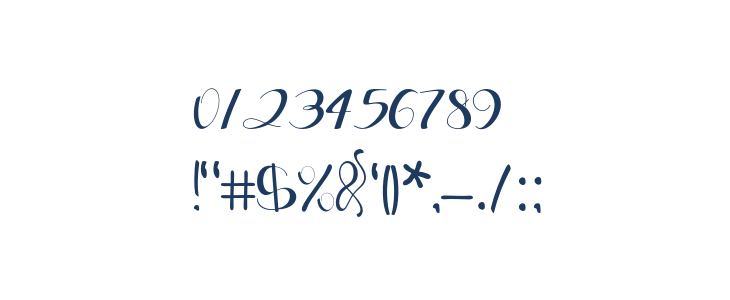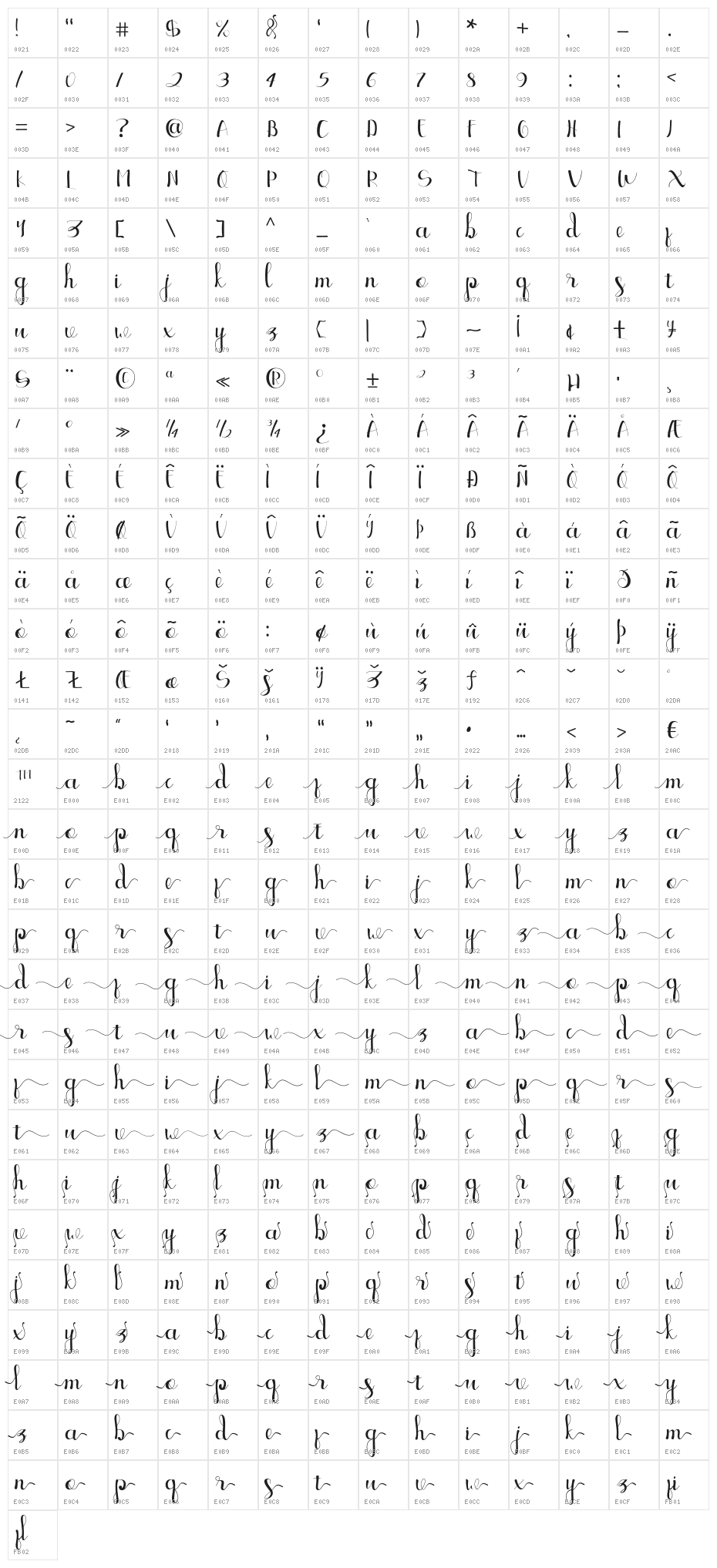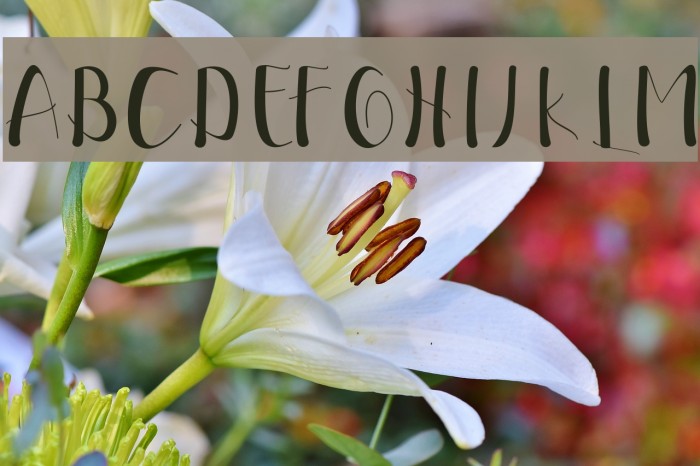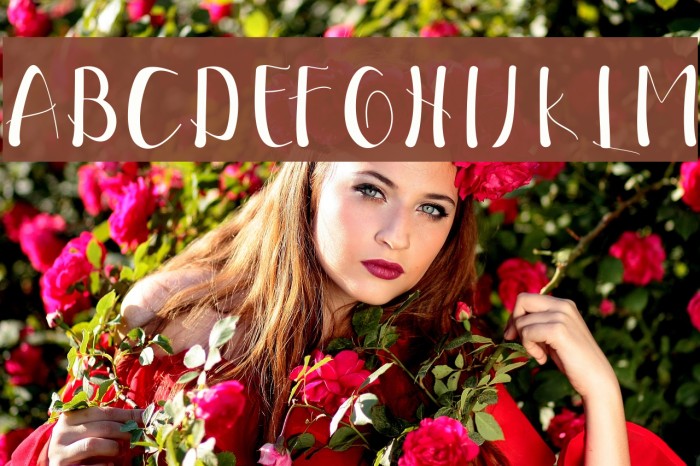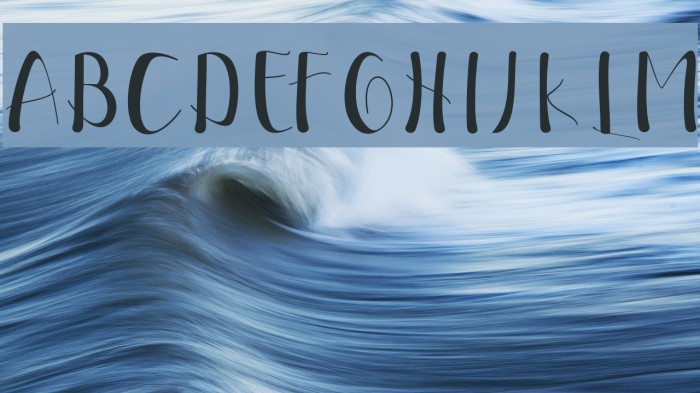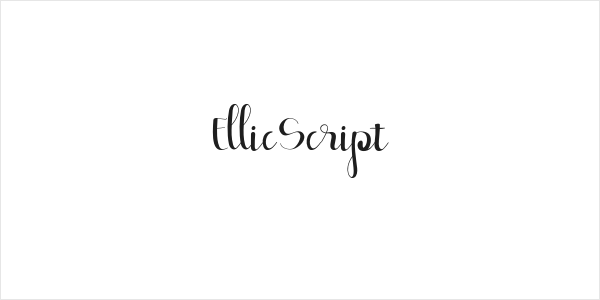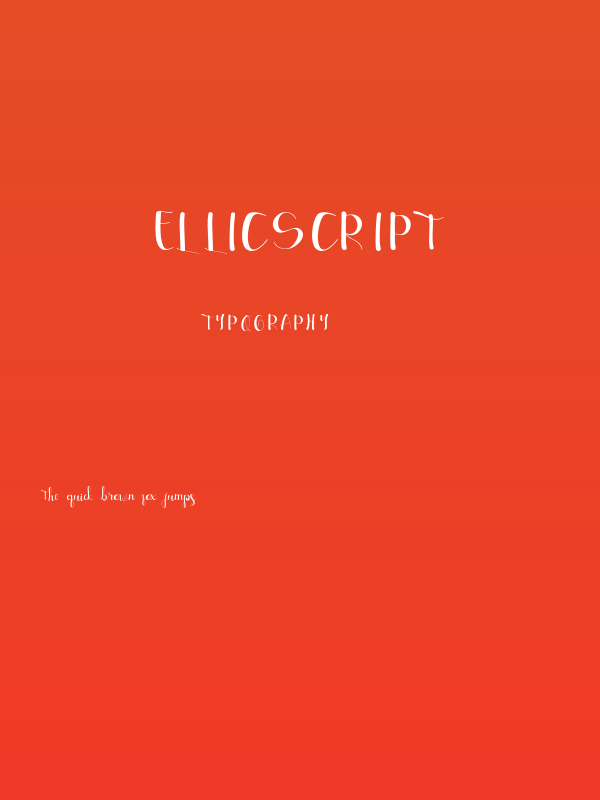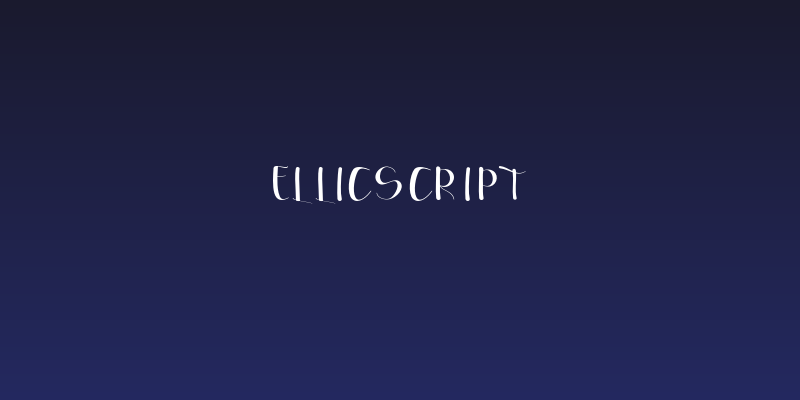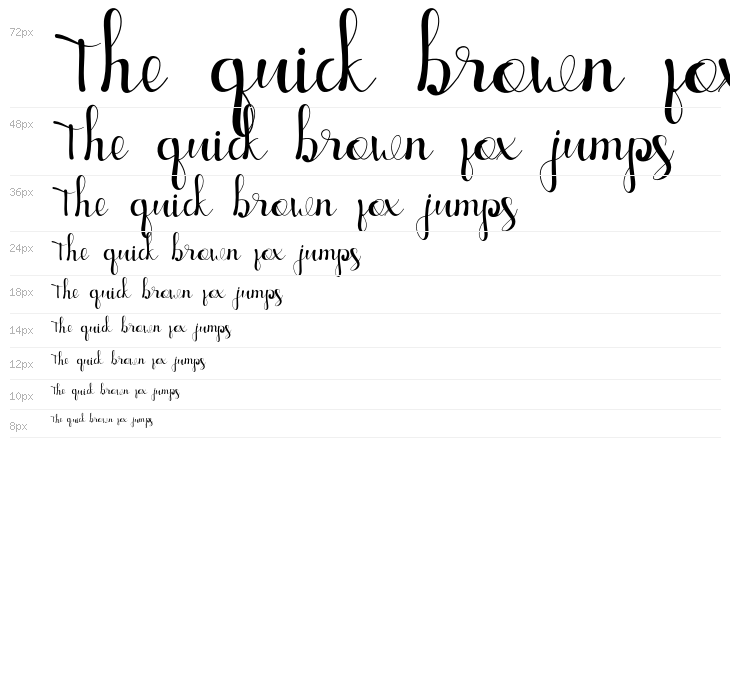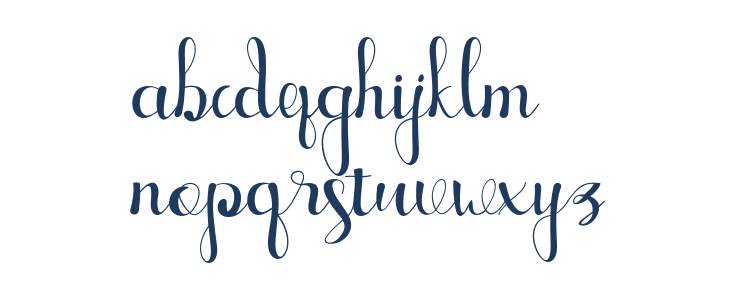
EllicScript Font
EllicScript Description
This elegant script font features a flowing, cursive style with intricate loops and swashes that give it a sophisticated and artistic appearance. The uppercase letters are tall and graceful, while the lowercase characters are more compact, maintaining a consistent flow throughout. The numerals and special characters are designed to match the overall aesthetic, adding a touch of flair to any text. The font's high contrast between thick and thin strokes enhances its readability while preserving its decorative charm.
| Proposed Projects | Ideal for wedding invitations, elegant branding, greeting cards, and artistic posters. |